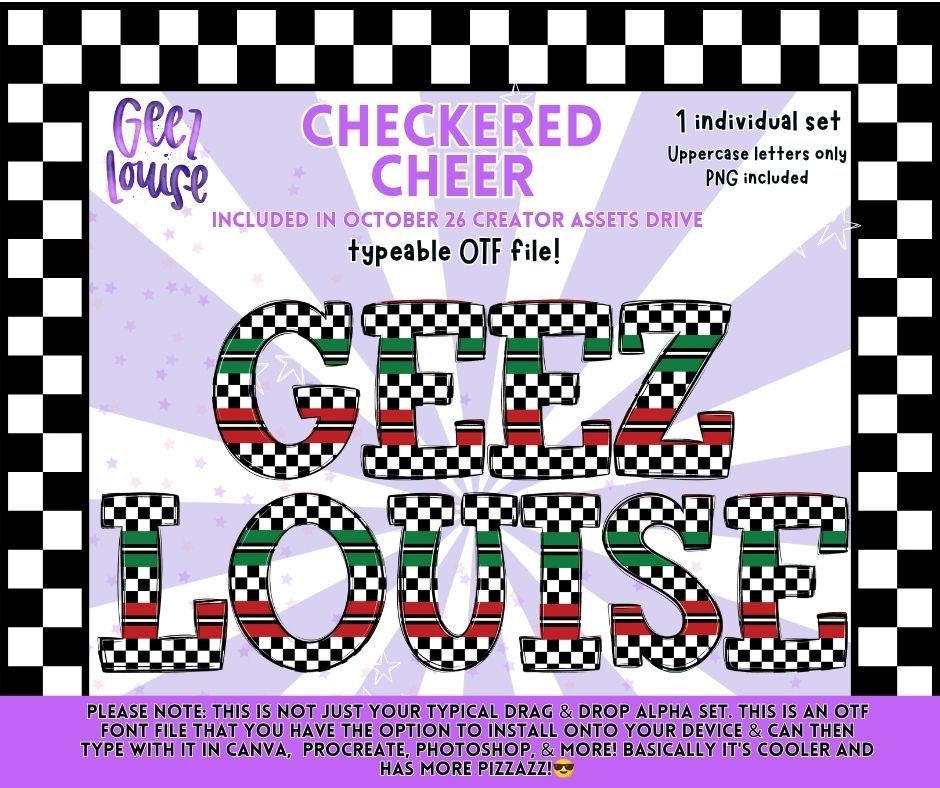
Checkered Cheer Christmas Alpha OTF Font + PNG Alphabet
A bold Christmas alpha featuring black and white checkerboard with festive red and green stripes. Includes a typeable OTF font plus individual uppercase PNG letters for easy creating in your favorite design programs. 🎄🏁